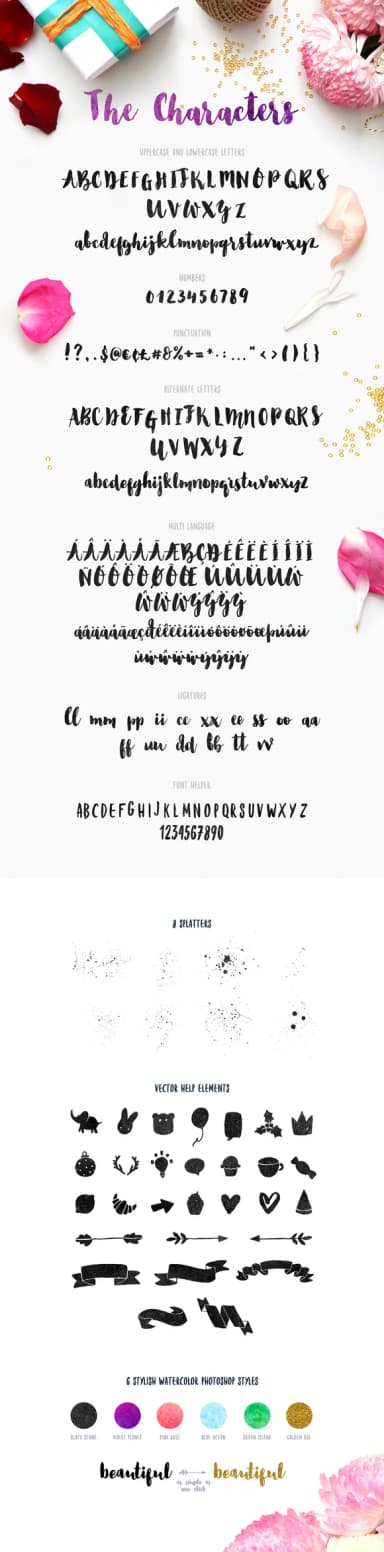
Florence Font by Kavoon is a flowing handwritten script that brings understated elegance and genuine warmth to design work across multiple mediums and creative applications. The typeface captures the authentic beauty of natural penmanship through its graceful curves and organic character construction, while maintaining the refined letterforms and exceptional clarity necessary for readability in both digital displays and traditional printed materials.
This script excels for creating personalized invitation suites that feel intimate and memorable, establishing distinctive branding identities for luxury goods and artisan businesses, designing custom greeting cards with authentic character, and crafting editorial layouts that benefit from handwritten warmth and personality. Florence Font works beautifully for developing artisan food packaging, boutique cosmetics labeling, boutique skincare branding, and wedding stationery where organic letterforms strengthen emotional connection with audiences. The included alternate characters and utility glyphs expand your composition possibilities significantly, making it straightforward to construct unique letter combinations and custom typographic arrangements without relying on predictable or generic solutions.
Florence Font is a script font that shines as a display or heading face. Pair it with a clean sans-serif or serif font for body text — the contrast creates a clear hierarchy while the two styles stay balanced and easy to read.